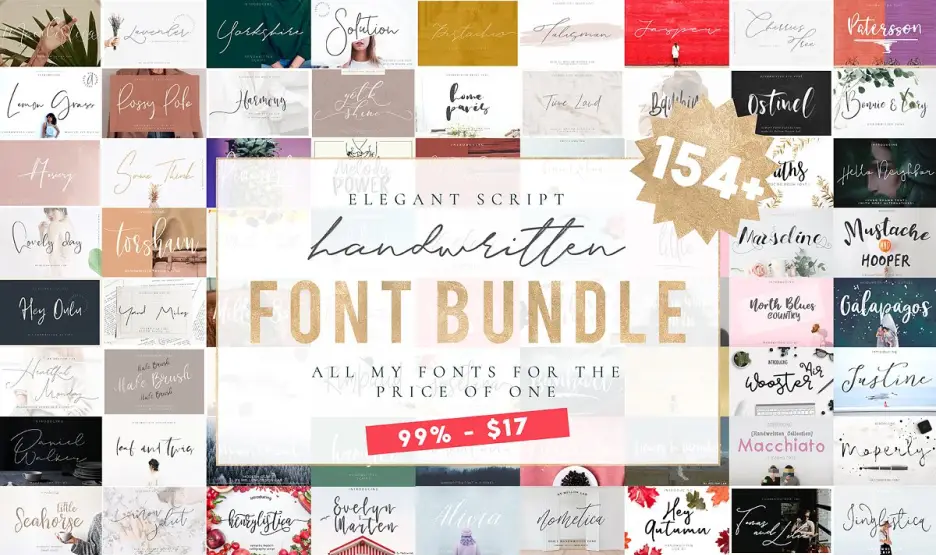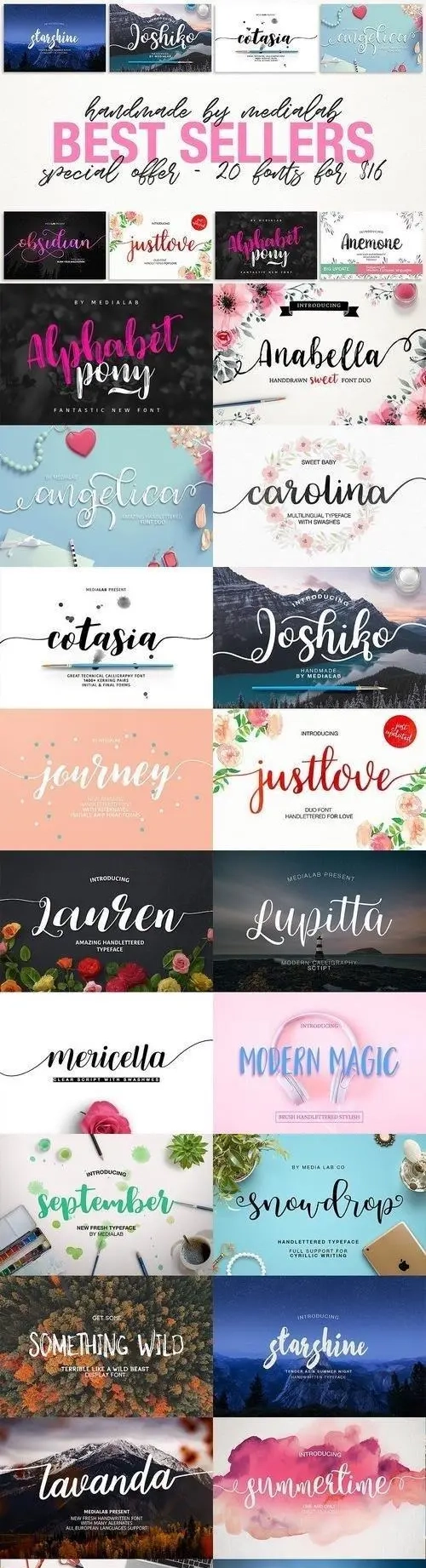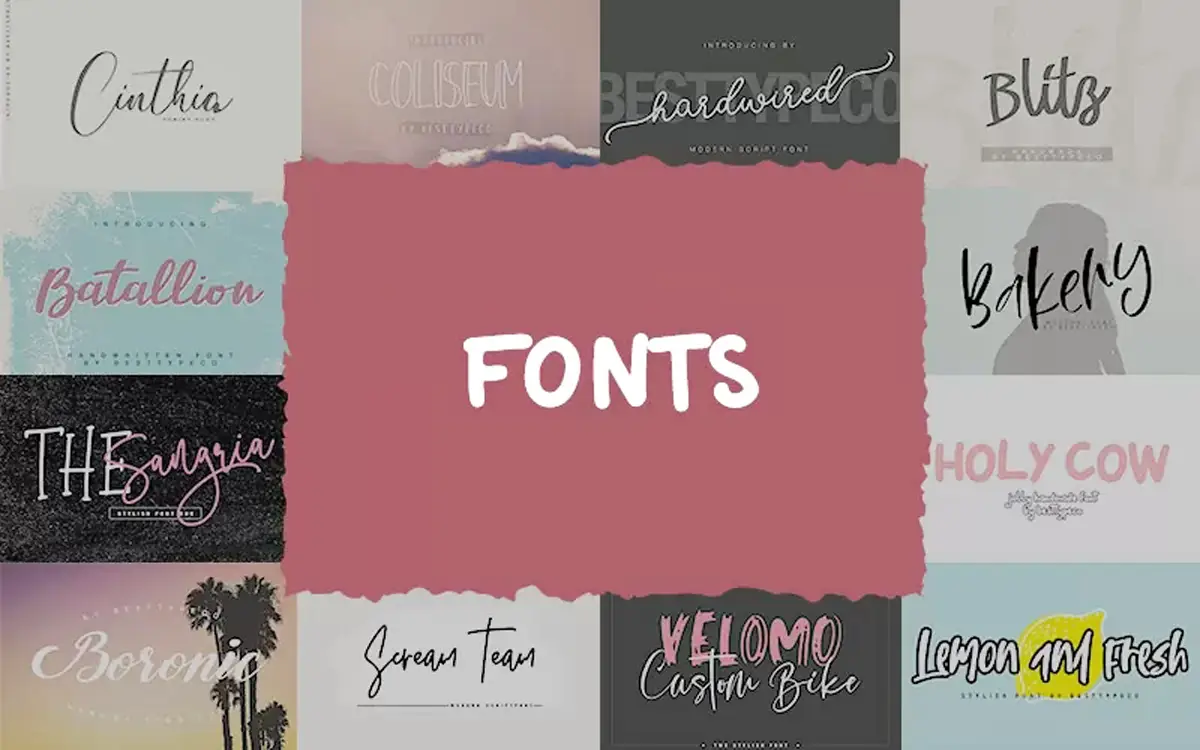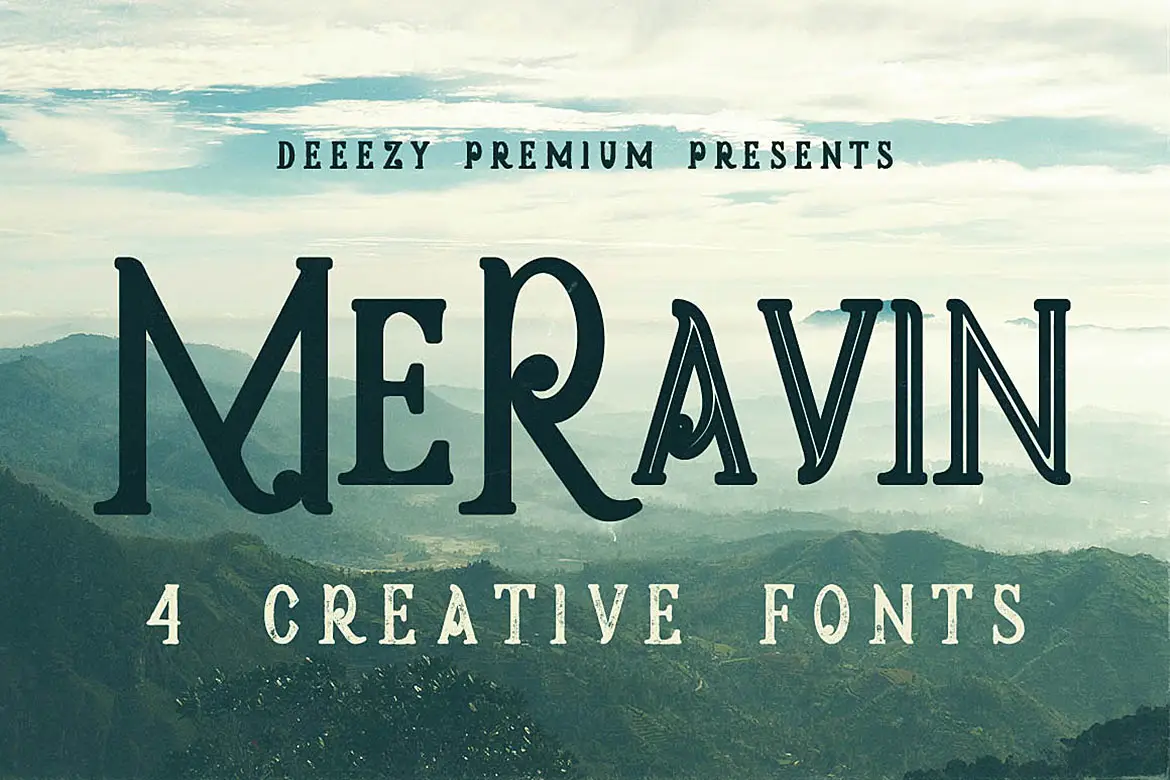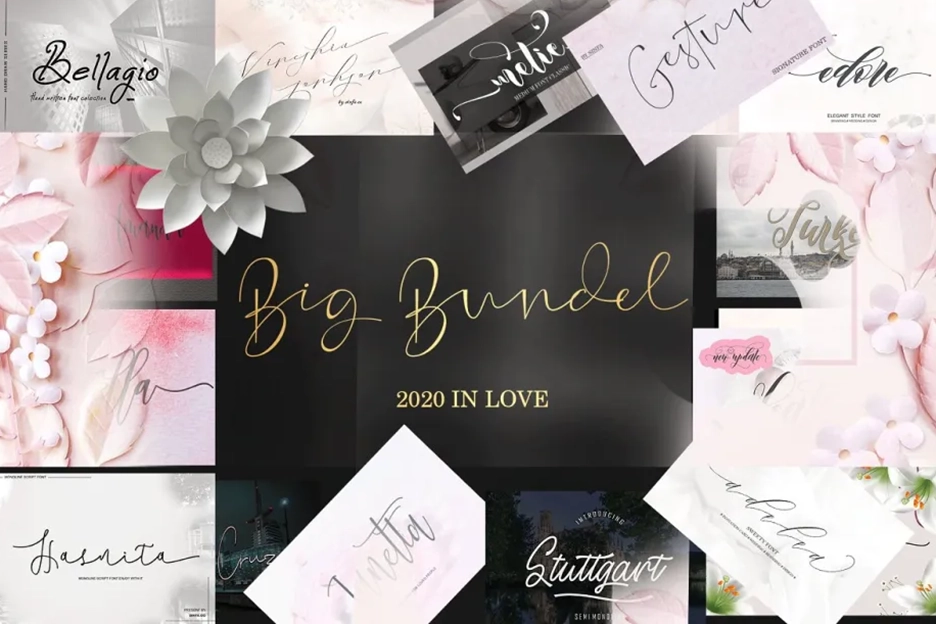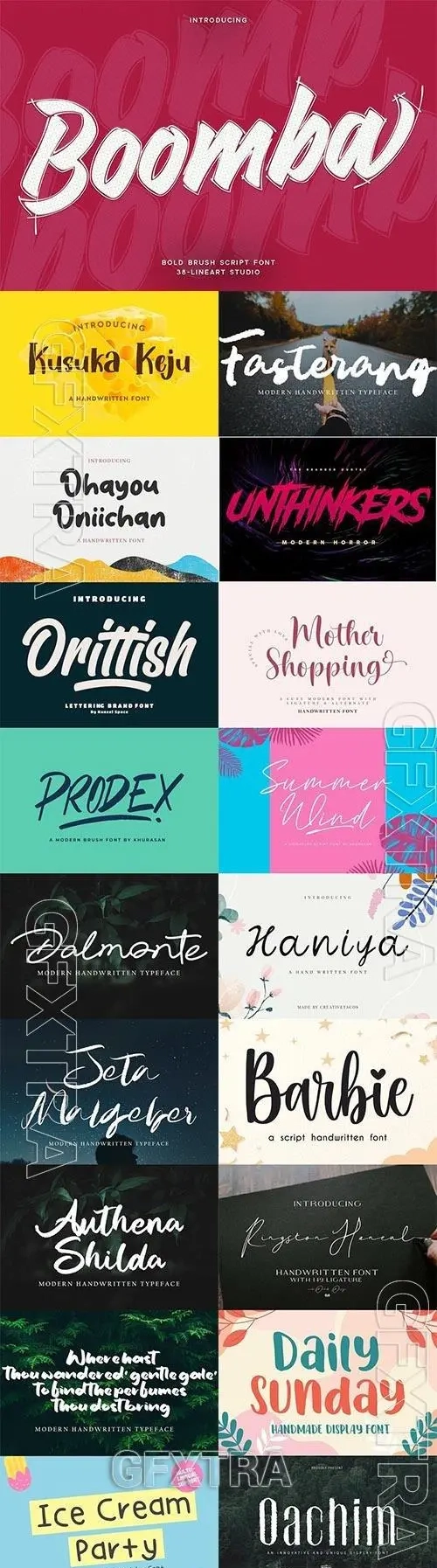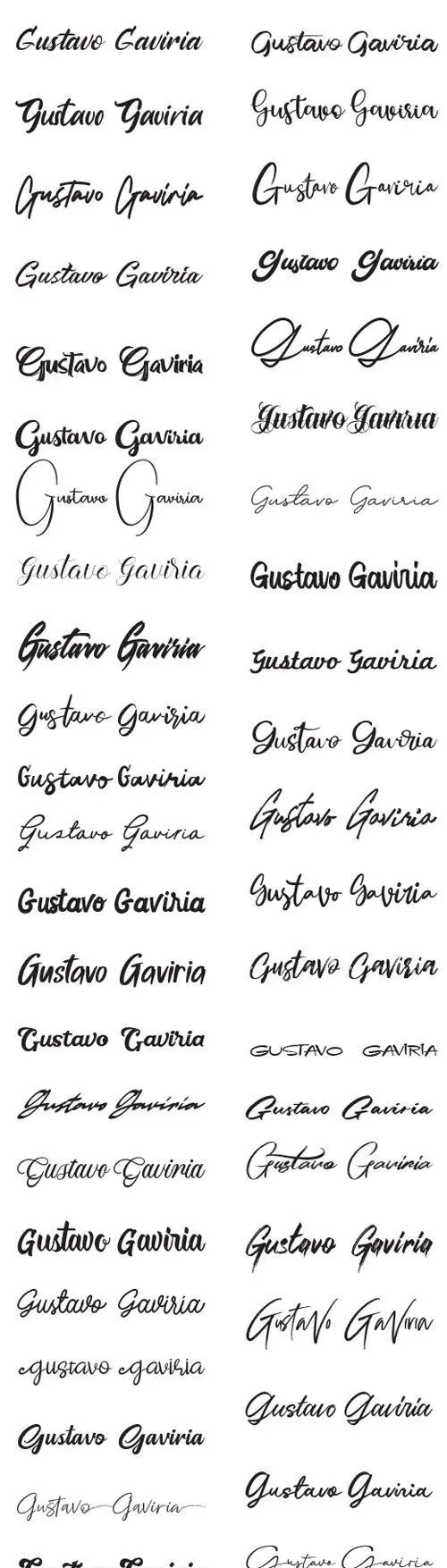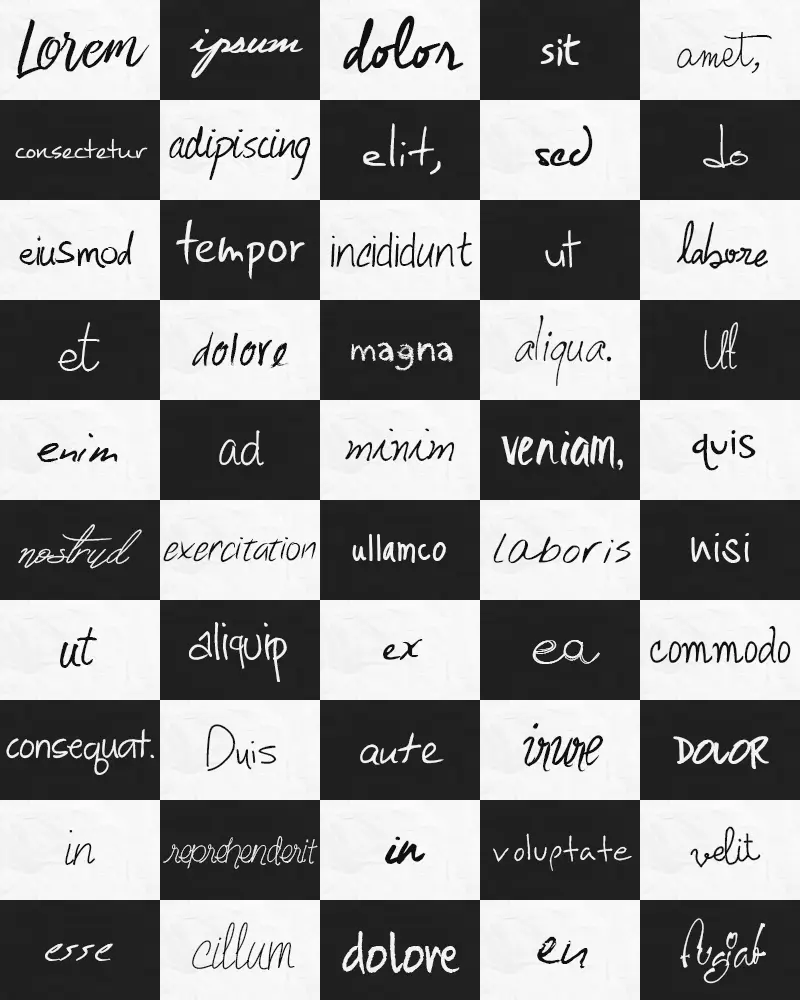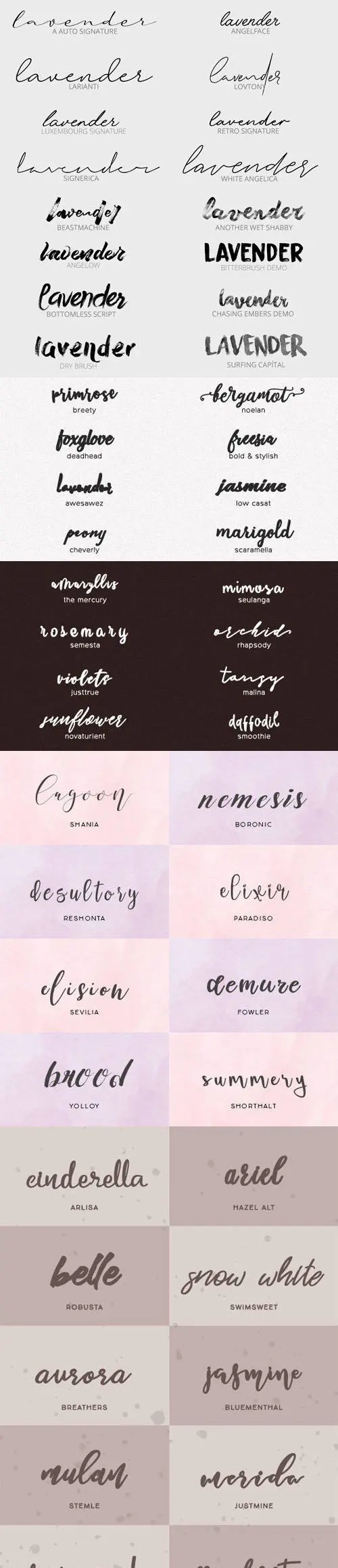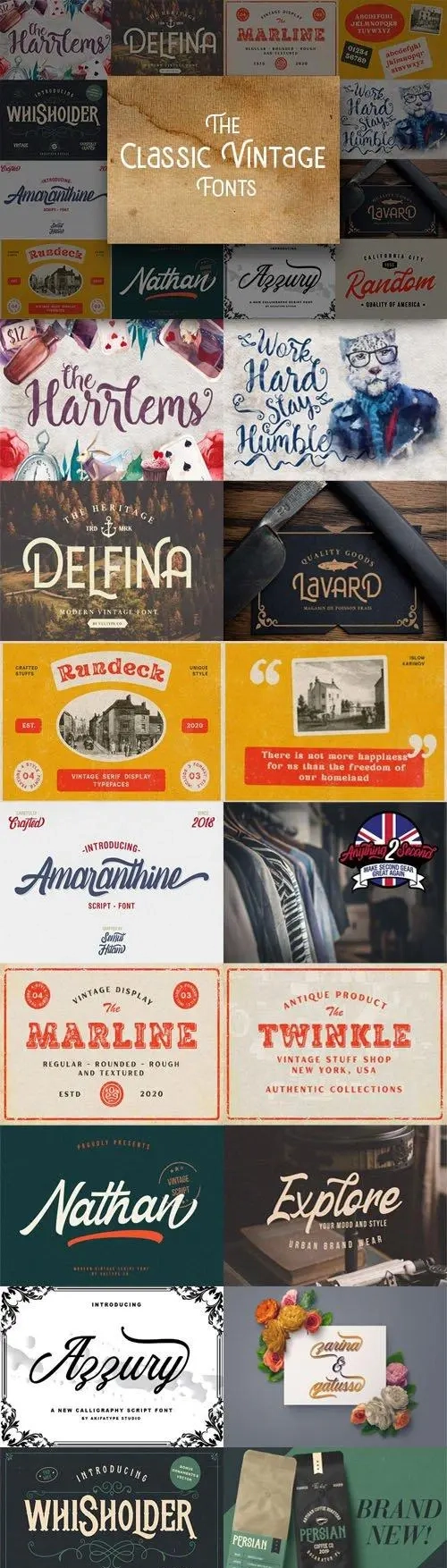
850+ Amazing Fonts Bundle
Holy moly—over 850 fonts in one bundle! 😱 From elegant serifs to modern displays, this is the ultimate typeface library for any designer who wants endless variety without breaking the bank. Your creative toolbox just got a massive upgrade!
50+ Fonts Collection
Looking for a solid mix of serif, sans-serif, and script? This 50+ collection is your go-to for everyday projects that need a touch of class and character. Perfect for building a strong, flexible font arsenal! 💪🎯
57 Handwritten Fonts Pack
There’s nothing like a handwritten font to add soul and warmth to your designs. ✍️ The 57 Handwritten Fonts Pack is bursting with authentic, sketchy vibes that are perfect for branding, logos, and cozy invitations. Get ready to feel the love!
64 Fonts Pack
Elegant serifs meet modern sans-serifs in this versatile 64-font pack. Whether you’re designing a wedding invitation or a sleek website, you’ll find the perfect match here. Quality and quantity in one neat package! 🎯✨
51 Handwritten Fonts Collection
Handwriting styles that feel like a personal note from a friend—that’s the magic of this collection! 🖊️💌 From messy to elegant, these 51 fonts are ideal for branding, social media, and anything that needs a human touch.
50+ New Fonts Pack
Fresh off the press! This pack brings over 50 brand-new typefaces to your library, mixing serif, sans-serif, script, and display styles. Keep your designs current and exciting with this curated set of new arrivals. 🔥🚀
80 Fonts Bundle
Eighty unique fonts? Yes, please! 🎉 This bundle covers all the bases—serif, sans-serif, script, and display—in high-quality OTF, TTF, and WOFF formats. A fantastic all-rounder for designers who love options.
8 Classic Vintage Fonts Collection
Calling all retro lovers! 🕰️ This petite but mighty collection of 8 vintage fonts oozes nostalgia and charm. Perfect for posters, logos, or anything that needs a timeless, old-school flair. Each weight is carefully crafted!
80+ Favorite Fonts Pack
Over 80 “fan favorite” fonts handpicked for maximum impact! From clean sans-serifs to decorative scripts, this pack covers every mood and project. A must-have for your growing font library. 💖✨
7 Beautiful And Fancy Fonts
Sometimes less is more! This curated set of 7 ultra-elegant, fancy fonts will add a touch of luxury to your invitations, branding, and social posts. Perfect for when you need to impress with subtle sophistication. 👑💎
70+ Handwritten Script Fonts Collection
70+ handwritten scripts that feel like pure magic! ✨ These flowing, personal typefaces are ideal for logos, wedding invites, and heartfelt projects. Your clients will love the custom, handcrafted look.
50 Premium Script Fonts Pack
Elevate your branding with 50 premium script fonts that scream professionalism and elegance. Each font is perfect for high-end logos, stylish invitations, or any project that needs a polished, cursive touch. 🖋️🌟
16 Fabulous Festive Holiday Fonts Pack
Get into the holiday spirit with 16 festive fonts! 🎄🎅 From jolly scripts to charming display styles, this pack is your secret weapon for creating unforgettable Christmas cards, party invites, and seasonal social media graphics.
20 Professional Font Bundle
Need fonts that mean business? 💼 This 20-font bundle is packed with clean, corporate-ready typefaces that still have plenty of personality. Perfect for branding, websites, and print materials that demand respect.
20 Funtastic Fonts Collection
Who said design can’t be fun? 🎉 This collection of 20 playful, quirky fonts is perfect for children’s books, party invitations, or any project that needs a big dose of personality and joy. Get ready to smile!
2020 In Love Bundel
A beautiful bundle of love-themed design assets! 💘 Including high-quality graphics, illustrations, and templates, this set is perfect for Valentine’s Day, weddings, or any romantic project. Spread the love!